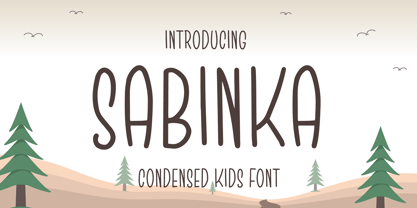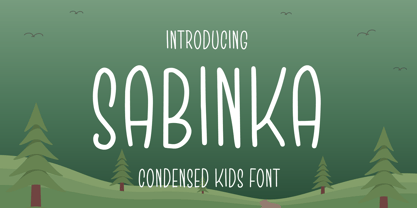
Sabinka
by Patria Ari
Sabinka, a fun condensed fantasy font with bouncy clean shapes. Sabinka is an all-caps font that easy to use as the decoration to make design more beautiful. Sabinka suitable for children's merchandise, t-shirt, books, poster, title, quotes, and many more!